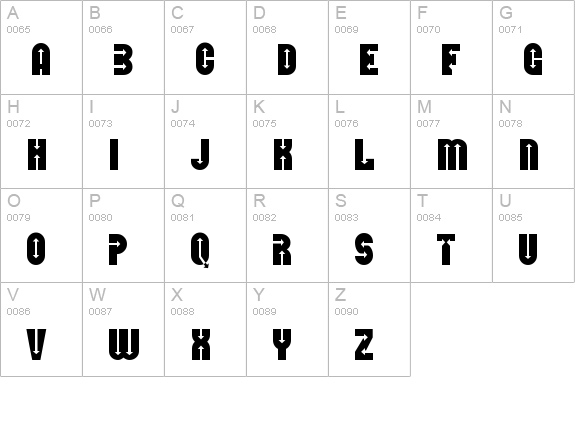
Directions MF font is a modern and stylish typeface that is perfect for a wide range of design projects. With its sleek and clean lines, this font exudes a sense of sophistication and professionalism. Designed with precision and attention to detail, Directions MF font is versatile and can be used for various purposes such as branding, logos, headings, and more. Its unique design sets it apart from other fonts, making it a great choice for those looking to make a statement with their typography. Best of all, Directions MF font is available for free download at FontsMarket.com. This means that you can easily access and use this font in your projects without any cost. So why wait? Download Directions MF font today and elevate your designs with its modern and elegant aesthetic.